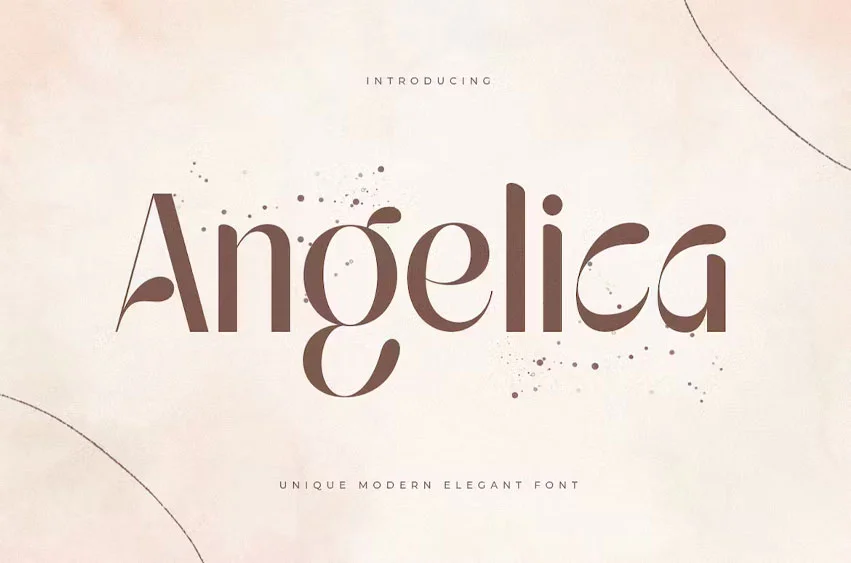
Angelica Font
Angelica Font is An Unique Modern Luxury Elegant with casual chic shape. It is perfect for any branding needs, with unique shape will be ready to add value of your brand. It so nice to leverage designer or product owner that need solutions to make their design look more Luxury and Elegant. And specially for Angelica font, We prepared two weights and nice shape to help you create unlimited variations for your creative needs.
Angelica Unique Modern Luxury Elegant font ready with:
• Ready with Regular and Bold version
• Ready with Lowercase and Uppercase characters